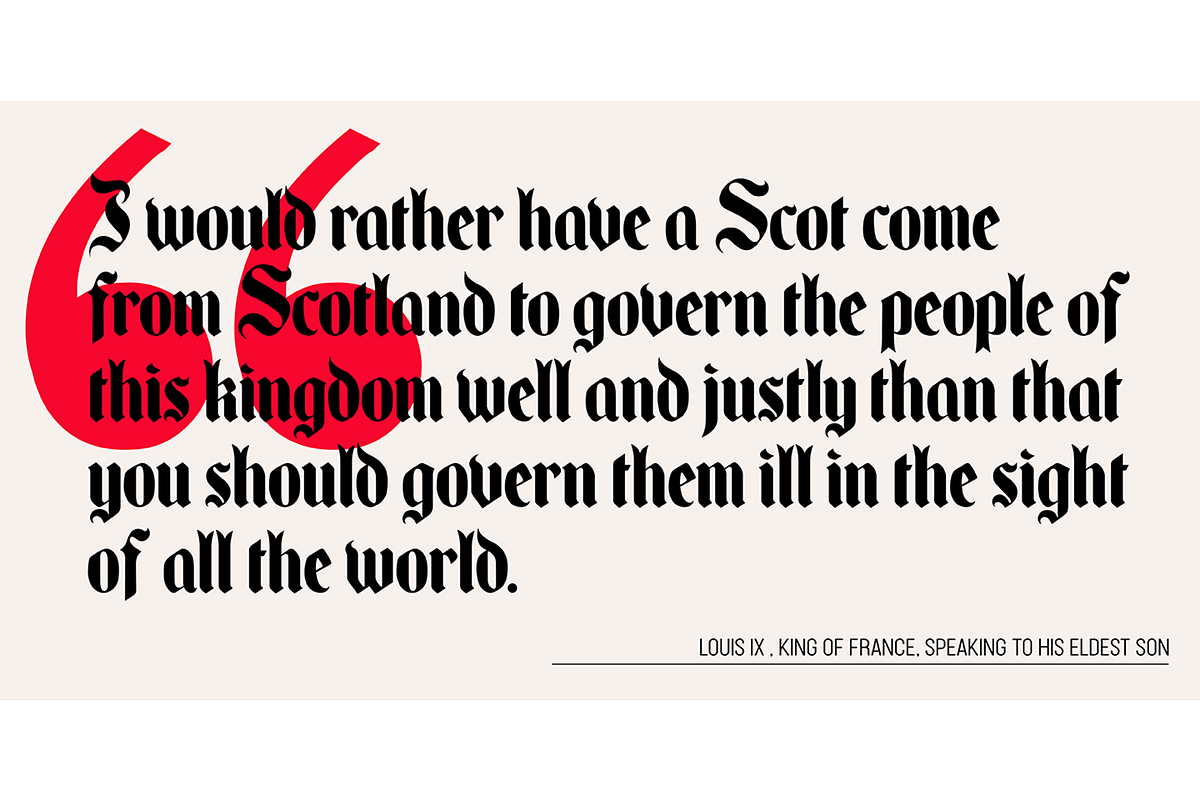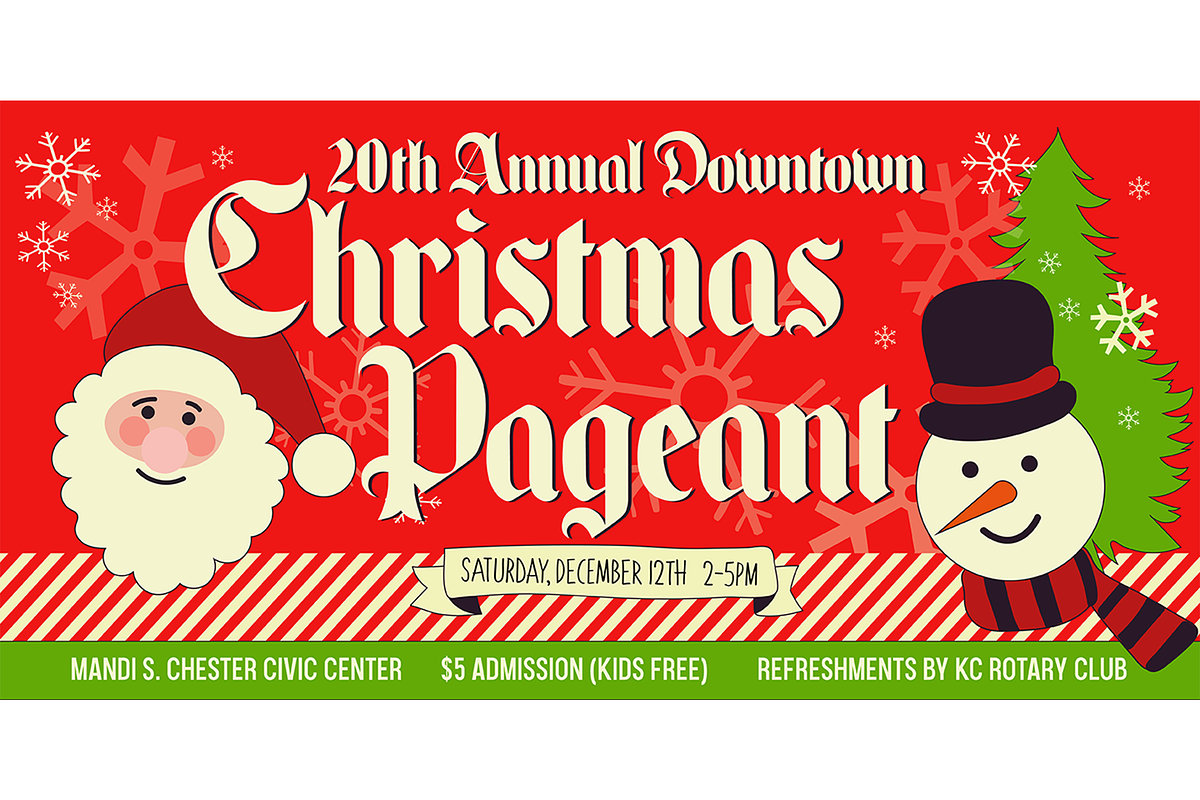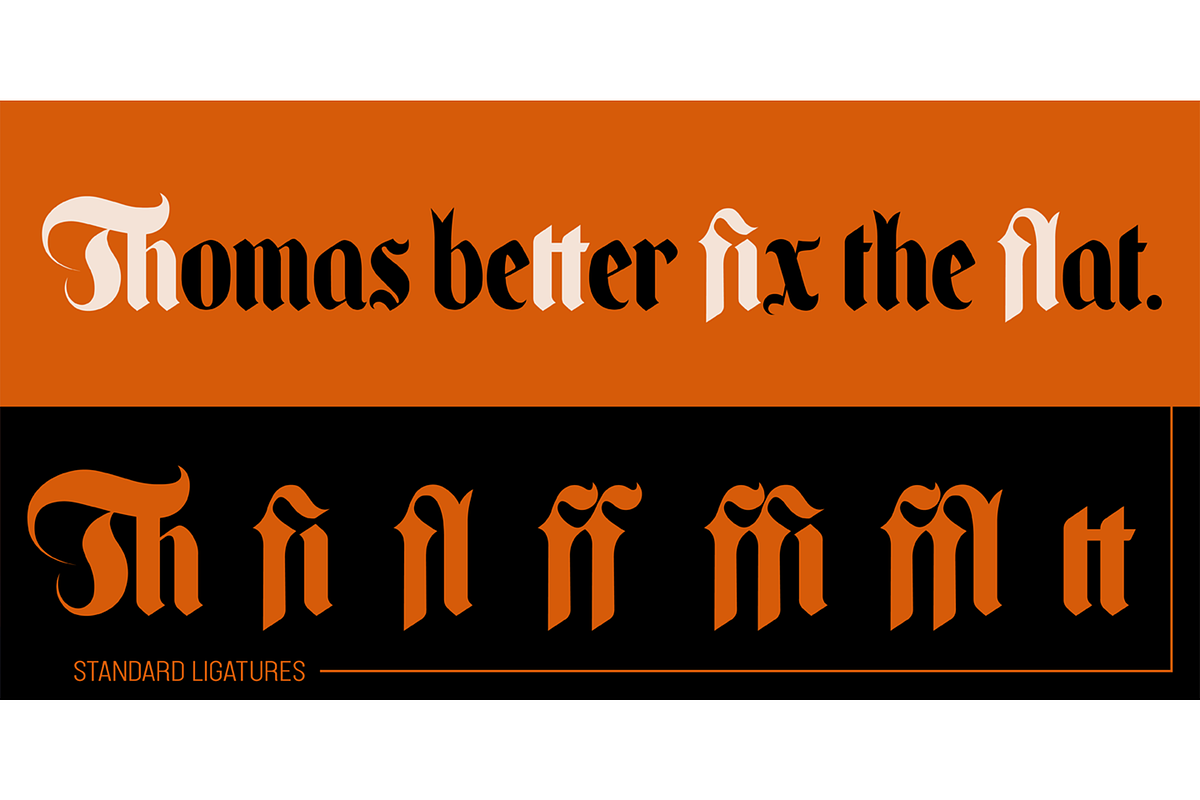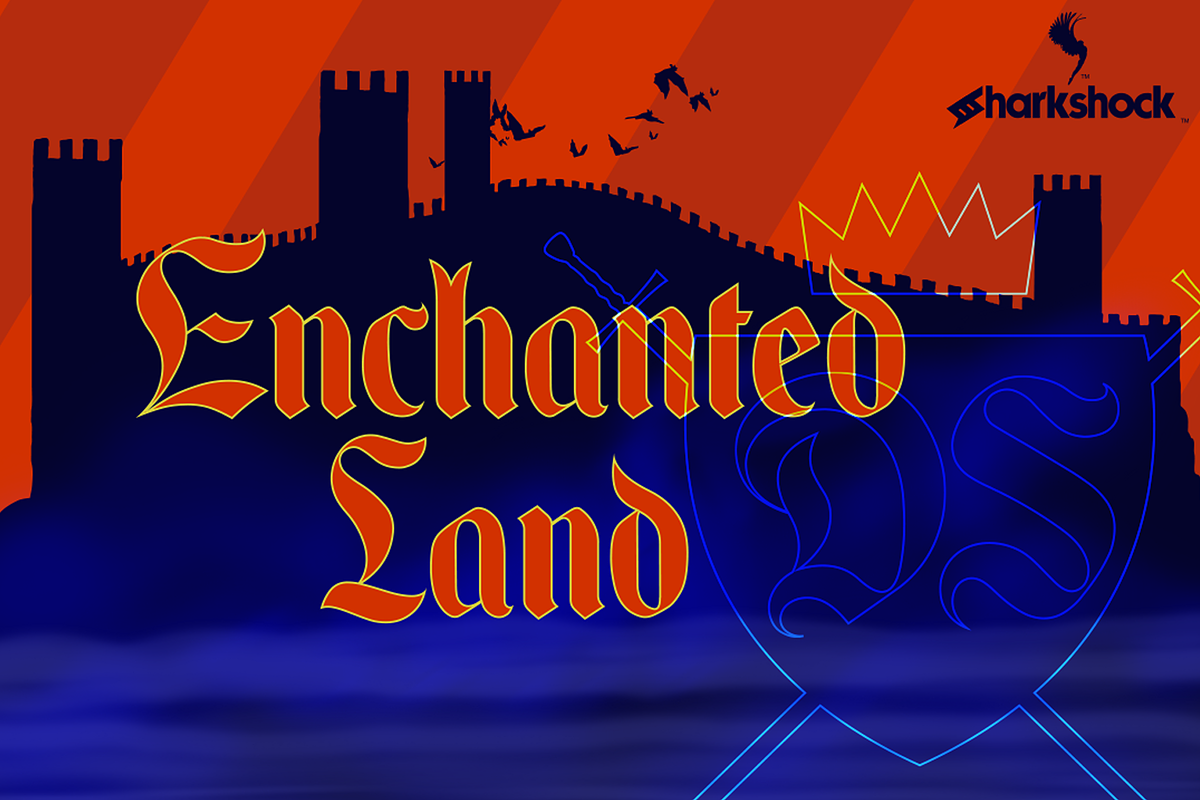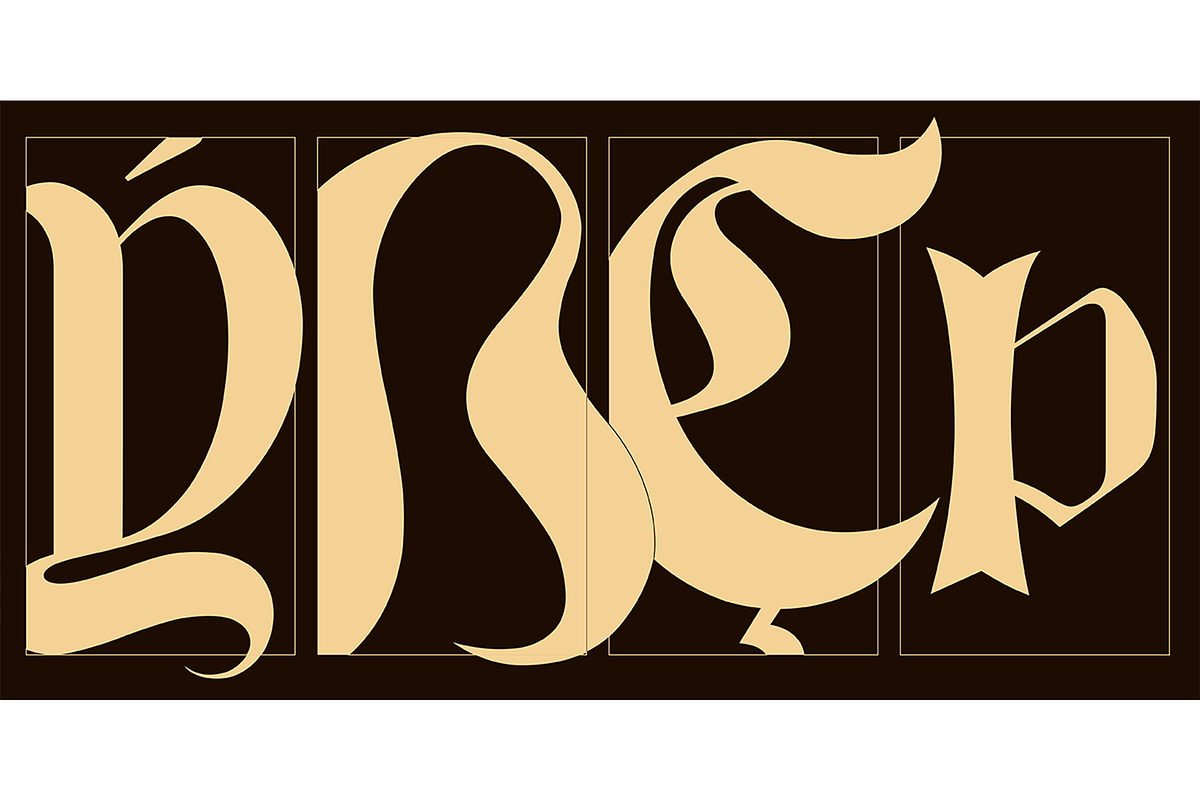
Enchanted Land DS
The 2nd installment of the Enchanted Land family takes us on another medieval adventure, opting to completely rebuild instead of refining the legacy script. More emphasis was put into the undulating nature of the Uppercase characters and how they keep your eyes flowing. For this reason, straight lines and right angles are rarely used in favor of flamboyant terminals and wispy swashes. Lowercase characters, by contrast, adhere to a consistent model defined by its straightened edges and sharp corners. This script flirts with several old world styles but seeks only to borrow elements rather than completely emulate them. German Blackletter, Old English, Uncial, Victorian, it’s in there! Enchanted Land DS would work well in a book, video game, or medieval signage.
This family is equipped with Basic Latin, Extended Latin, ligatures, punctuation, a few alternates, and kerning.